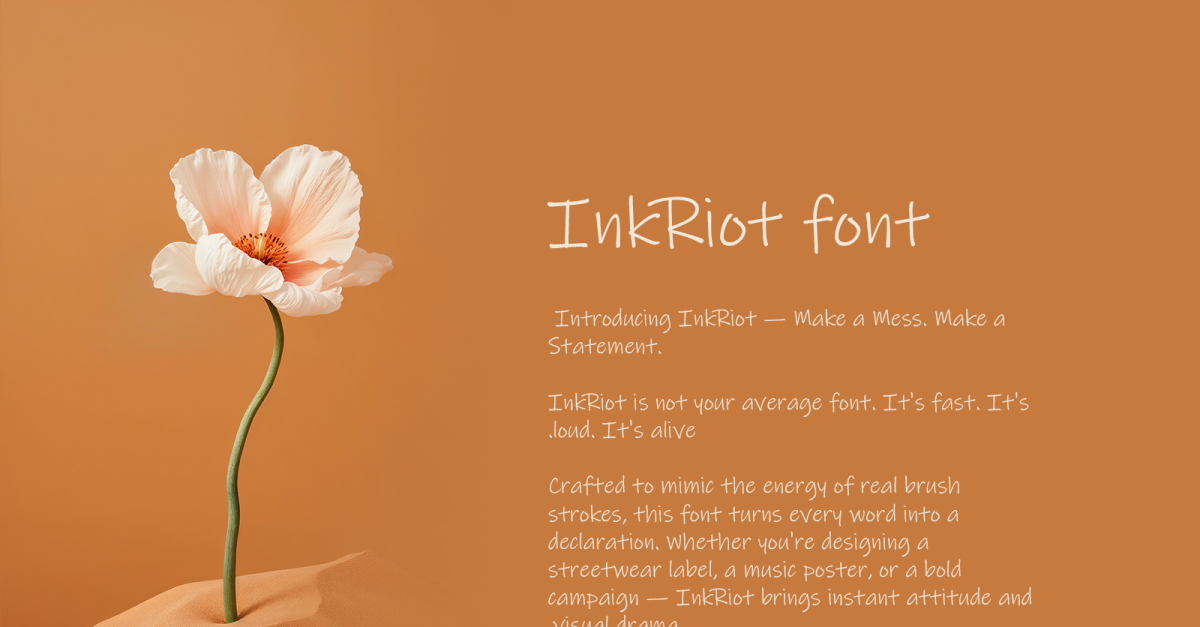
π¨ Introducing InkRiot β Make a Mess. Make a Statement.
InkRiot is not your average font. It's fast. It's loud. It's alive.
Crafted to mimic the energy of real brush strokes, this font turns every word into a declaration. Whether you're designing a streetwear label, a music poster, or a bold campaign β InkRiot brings instant attitude and visual drama.
- ποΈ Hand-drawn brush texture
- π Perfect for urban, fashion, music, and youth culture
- β‘ Wild, energetic, and 100% expressive
InkRiot doesnβt whisper β it shouts.
𧨠InkRiot β Typography with attitude.